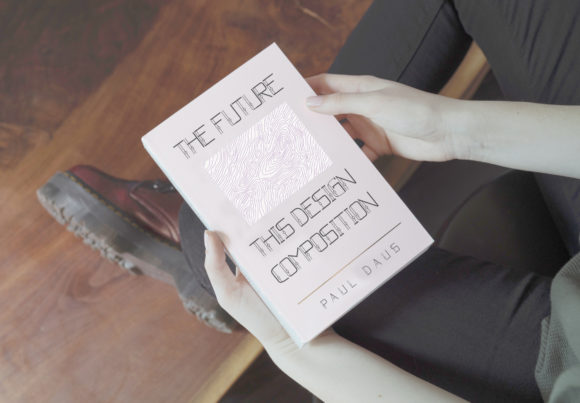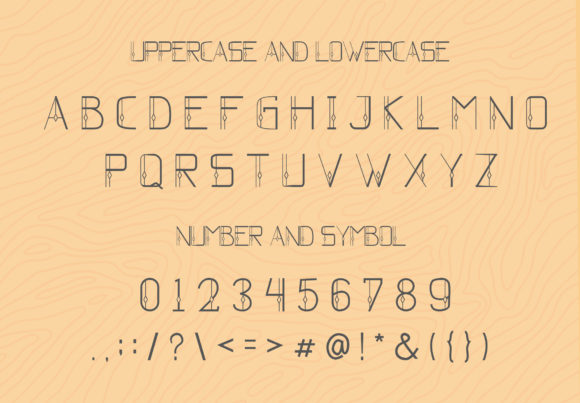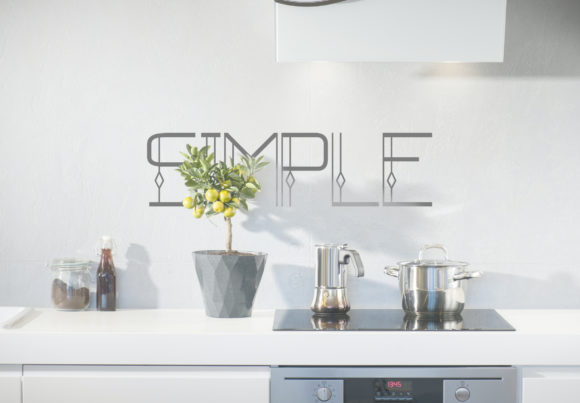
Introduction to Lopue Font
Lopue is a unique, retro and interesting display font.
Fall in love with its incredibly versatile style and use it to create spectacular designs .
Key Features of Lopue Font
Why Choose Lopue Font?
Lopue Font offers exceptional quality and versatility, making it a valuable addition to your design toolkit. Whether you’re creating for personal projects or commercial use, Lopue Font delivers professional results.